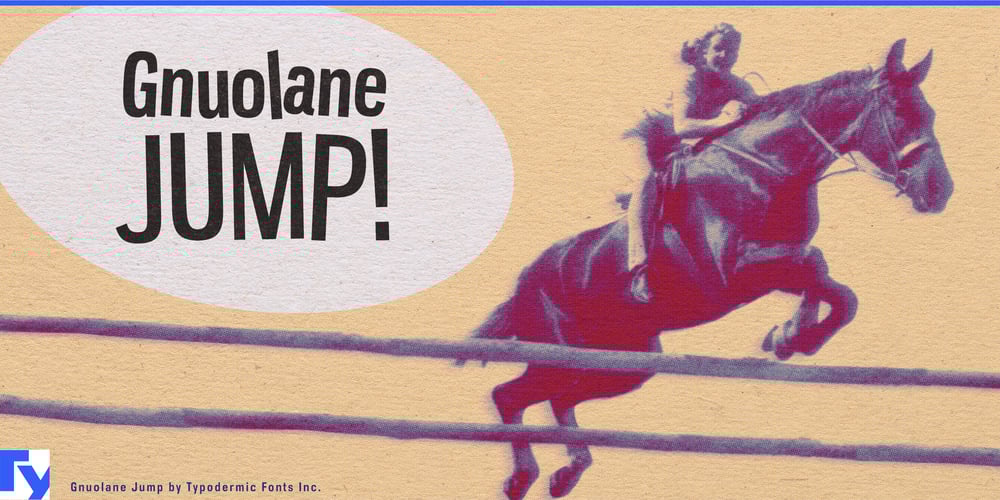
Gnuolane Jump Font Family was designed by Ray Larabie, Chikako Larabie and published by Typodermic. Gnuolane Jump contains 4 styles and family package options. Step into the typographic time machine with Gnuolane Jump, a typeface that dances on the line between vintage charm and modern playfulness. This sprightly descendant of early twentieth-century grotesques has been infused with the exuberant spirit of the 1960s, resulting in a design that’s equal parts nostalgia and innovation.Gnuolane Jump’s superelliptical forms give it a uniquely approachable personality—imagine the typographic equivalent of a well-loved vinyl record playing your favorite retro hits. But don’t let its friendly demeanor fool you; this typeface packs a punch when it comes to versatility and functionality. The real magic happens when you put Gnuolane Jump to work. Its OpenType ligatures are like a choreographed dance routine, automatically substituting common character sequences to create a delightful bouncing effect. It’s as if each word is doing the Twist, infusing your headlines and displays with irresistible energy and movement.Adding to its vintage allure, Gnuolane Jump features old-style numerals that blend seamlessly with text, perfect for creating designs that evoke the spirit of bygone eras without feeling dated. Whether you’re crafting posters for a retro music festival, designing packaging for artisanal sodas, or branding a hip new diner, Gnuolane Jump brings the perfect mix of nostalgia and freshness. Gnuolane Jump isn’t just about looks—it’s a linguistic gymnast too. With support for a vast array of Latin-based European languages, it’s ready to bounce across borders, spreading its joyful message from the cafes of Paris to the streets of Warsaw. It’s like having a polyglot pen pal who can write you letters in dozens of languages, each one brimming with personality.For those moments when you need to dial back the exuberance, remember that Gnuolane Jump is part of a typographic family. Its siblings, Gnuolane and Gnuolane Stencil, offer more subdued options while maintaining the family’s distinctive character. But when you’re ready to turn up the charm and let your typography sing, Gnuolane Jump is your go-to performer.In a world that often takes itself too seriously, Gnuolane Jump is a breath of fresh air—a typeface that knows how to have fun while still getting the job done. So go ahead, give your designs a little bounce.